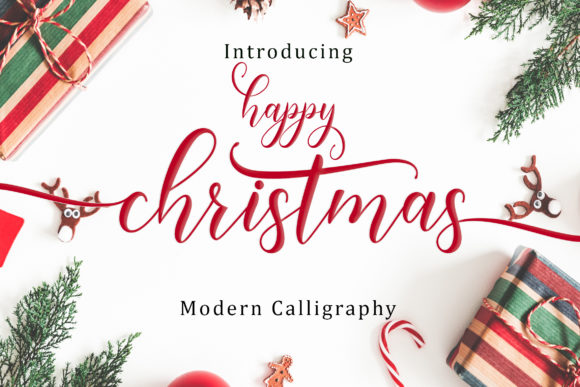
Introducing Happy Christmas Script Font, the ultimate holiday essential for adding a touch of festive magic to your design projects! Created by the talented Amarlettering, this captivating script font is specifically designed to infuse your creations with the joy and cheer of Christmas.
With its elegant and whimsical style, Happy Christmas instantly transports you into a world of warmth, love, and celebration. Whether you're creating holiday cards, invitations, posters, or social media graphics, this font will effortlessly capture the essence of the season, making your designs truly stand out.
Immerse yourself in the enchanting beauty of Happy Christmas. Its unique script style embodies the elegance of handwritten letters, while exuding a playful charm that perfectly complements the holiday spirit. Every stroke and curve is meticulously crafted, resulting in a font that is both visually stunning and emotionally captivating.
Bring your visions of a picture-perfect Christmas to life with Happy Christmas. Imagine beautifully adorned greeting cards that evoke feelings of nostalgia and joy. Picture charming and whimsical typography that instantly transports your audience to a cozy winter wonderland. This font allows you to effortlessly create designs that resonate with the magic of the season.
Happy Christmas is not just a font; it's a gateway to creating unforgettable memories. Its versatility knows no bounds, enabling you to adorn a wide range of projects with a touch of holiday cheer. From festive party invitations to heartwarming family newsletters, this font is your secret weapon for spreading happiness and warmth.
Infuse your designs with the emotions of the season using Happy Christmas Script Font. Watch as your audience's hearts fill with delight as they encounter the whimsical charm and festive ambiance this font effortlessly delivers. Let your creativity soar this Christmas and leave a lasting impression on everyone who lays eyes on your designs.